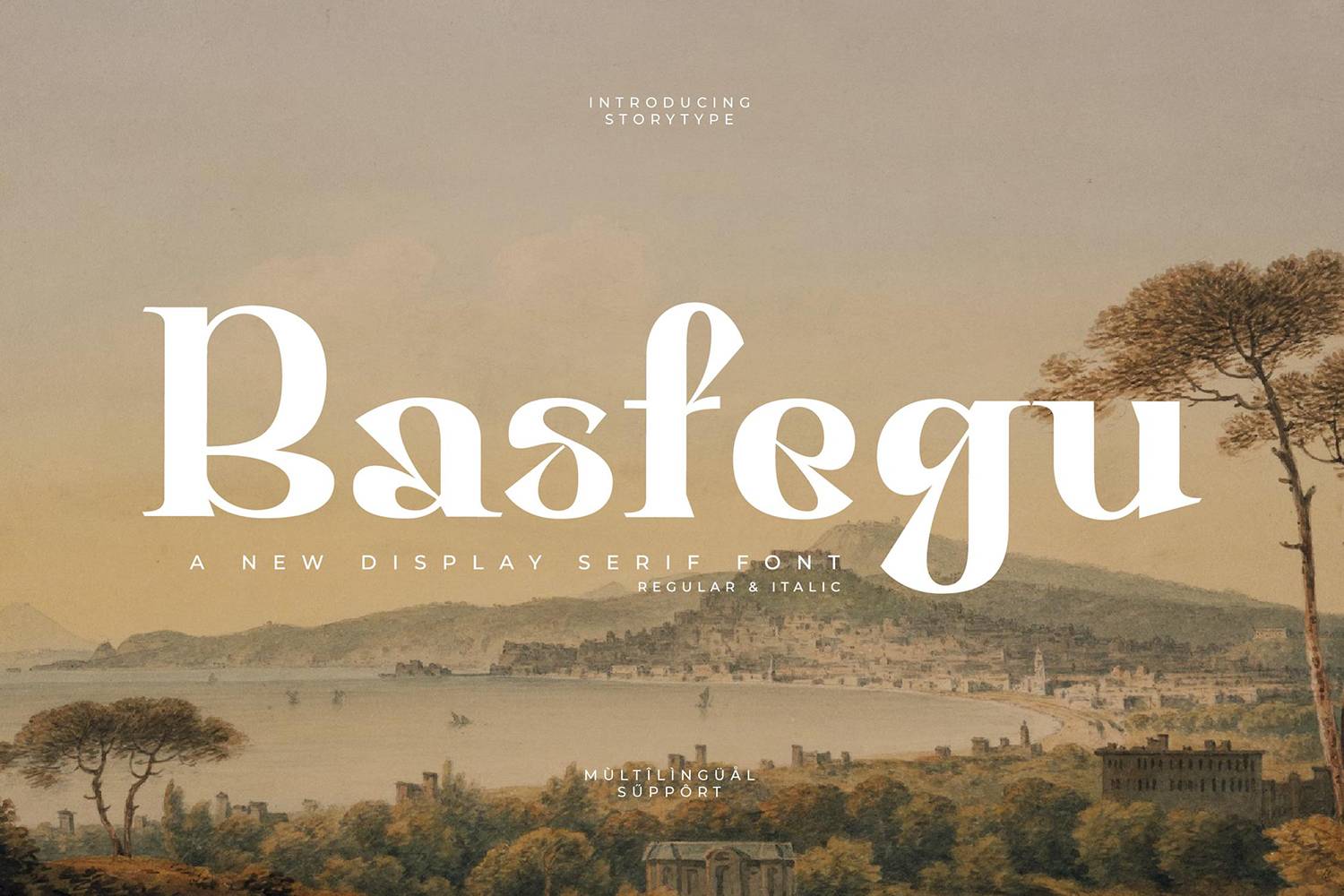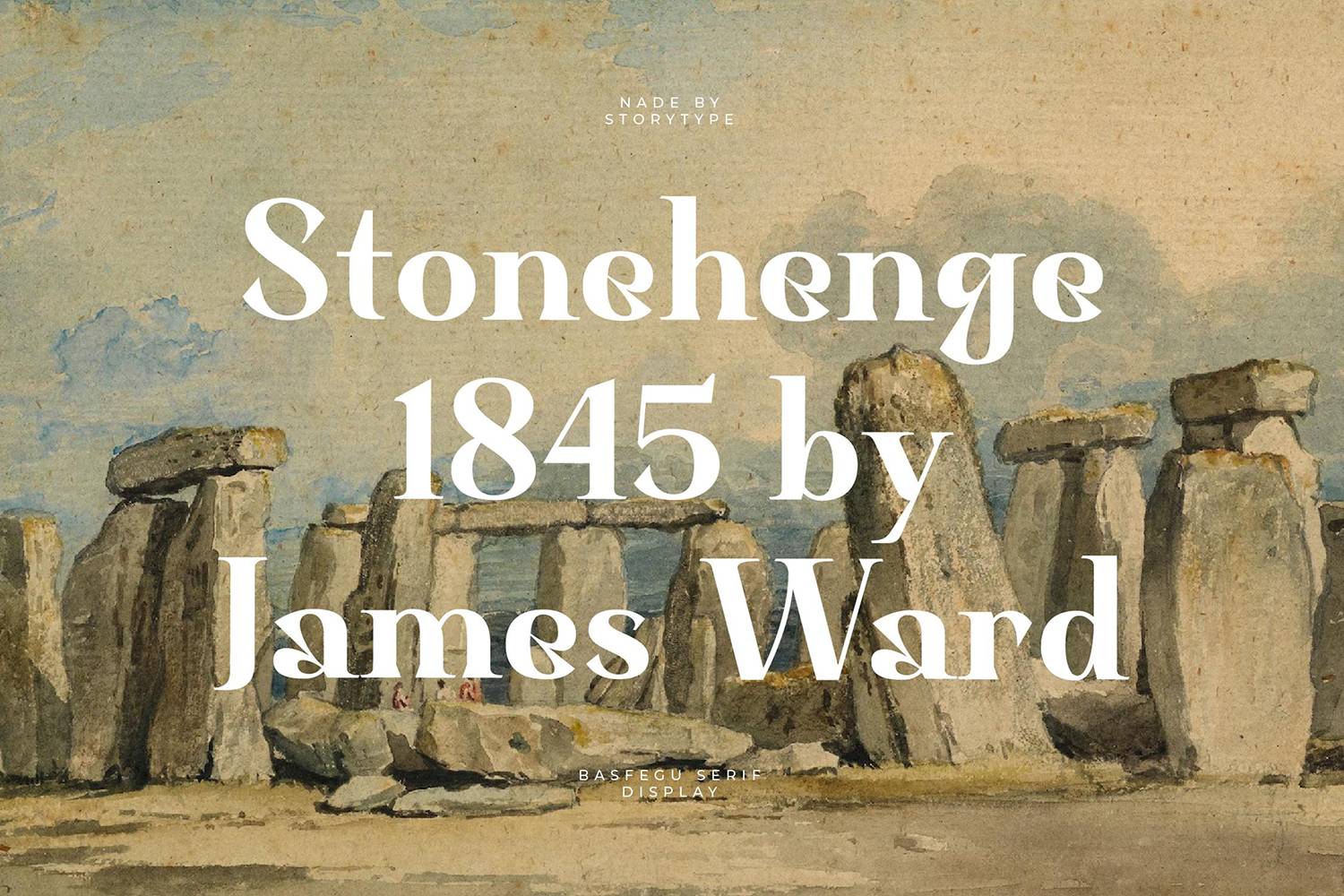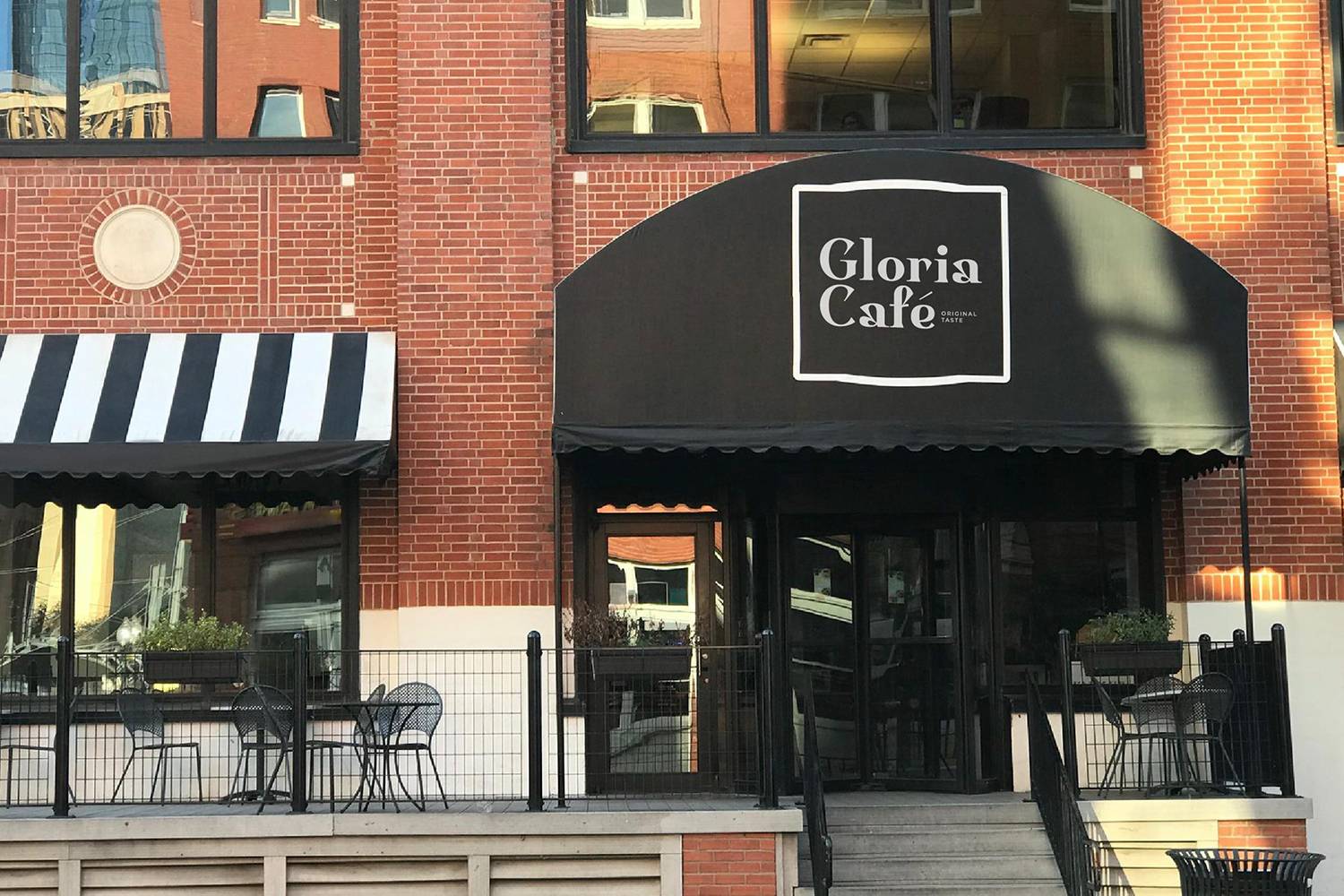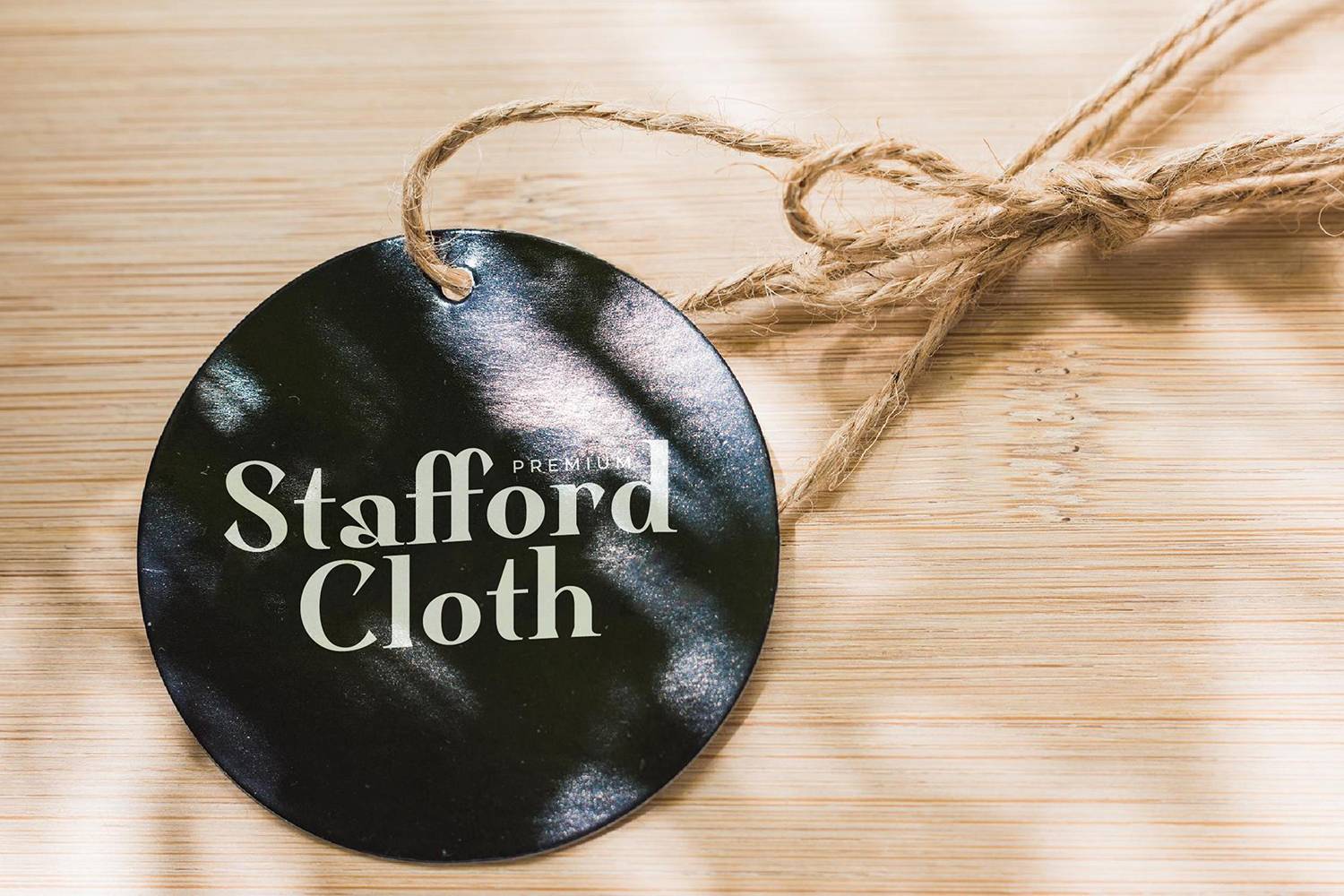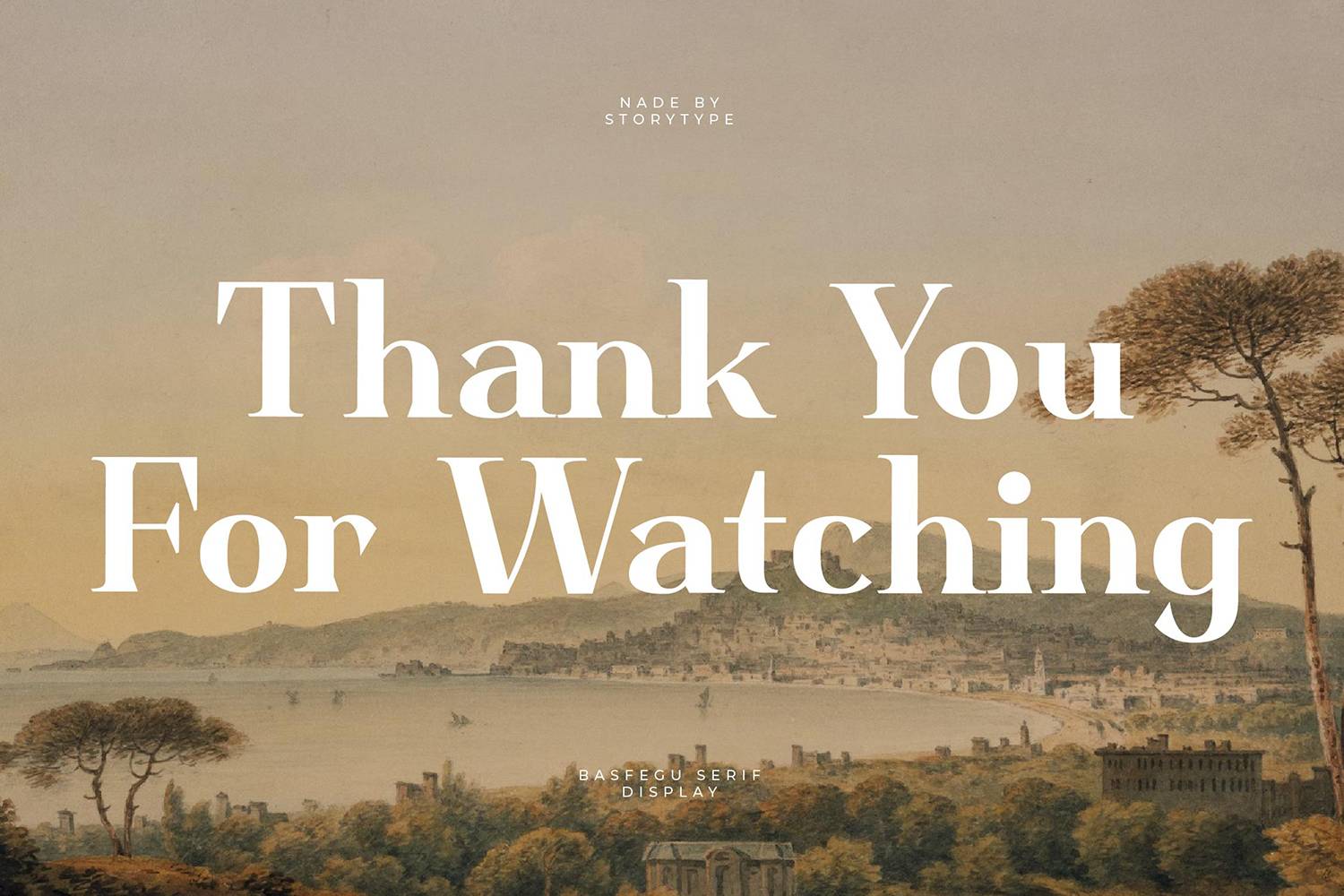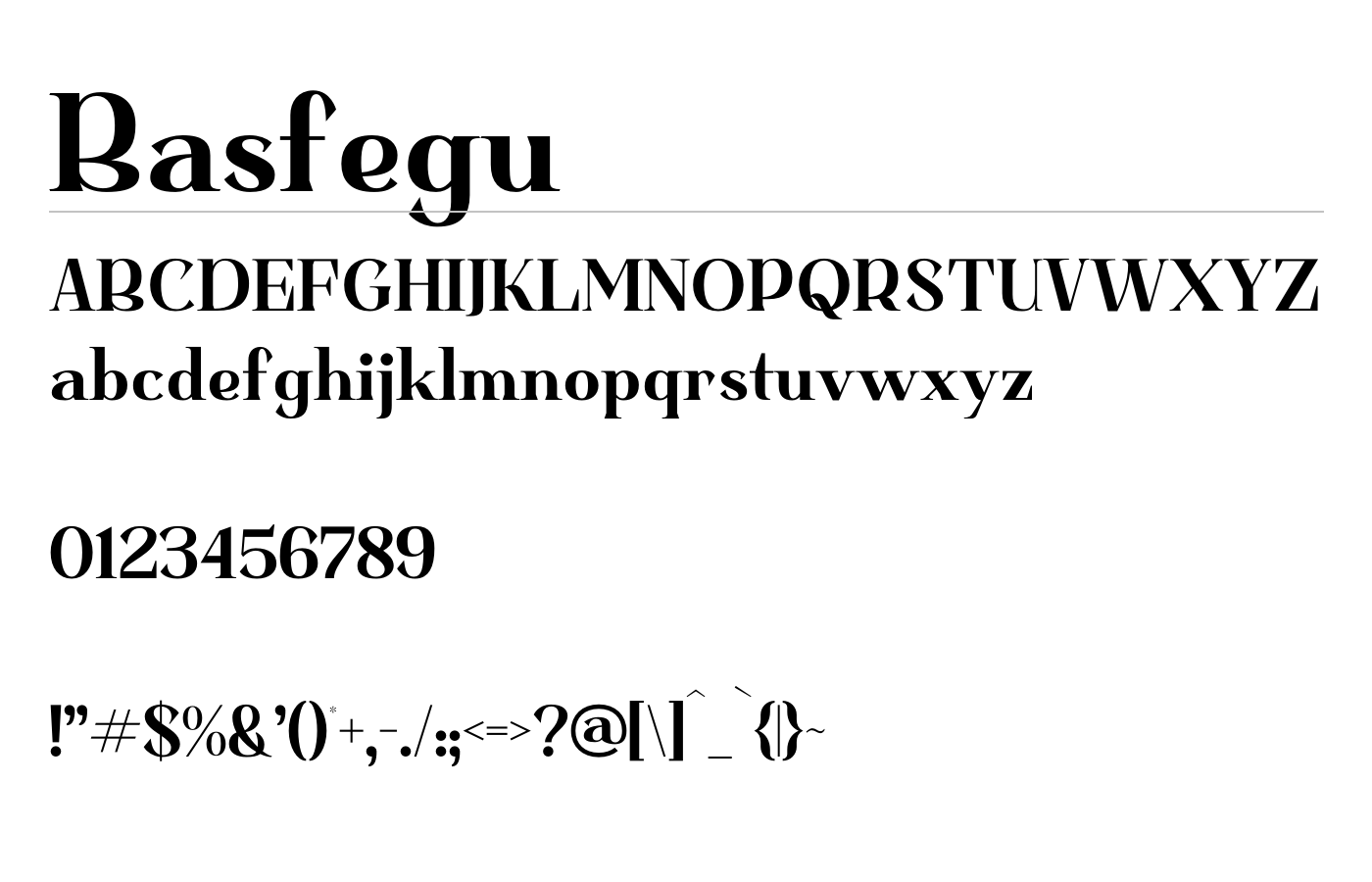
Basfegu is a refined serif font that combines classic elegance with a modern touch, featuring strong contrasts between thick and thin strokes and smooth, bracketed serifs. Its medium weight and balanced proportions offer a sophisticated yet approachable feel, making it ideal for editorial headlines, luxury branding, and formal print materials. With distinctive letterforms and high readability, Basfegu works well wherever a timeless, classy impression is desired.
Basfegu Font
About Basfegu Font